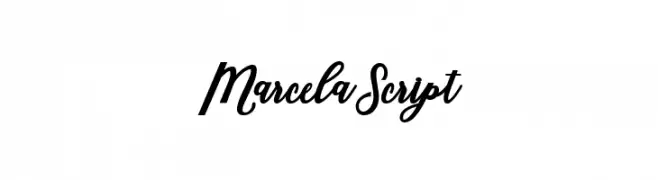
A cursive, handwritten-style font with elegant, flowing strokes.
An elegant script font with intricate loops and decorative flourishes.
An elegant, flowing script font with thin, delicate strokes and graceful curves.
A flowing, cursive script font with elegant, connected strokes.
A playful, handwritten font with smooth curves and a casual style.
A graceful script font with a natural handwritten style.